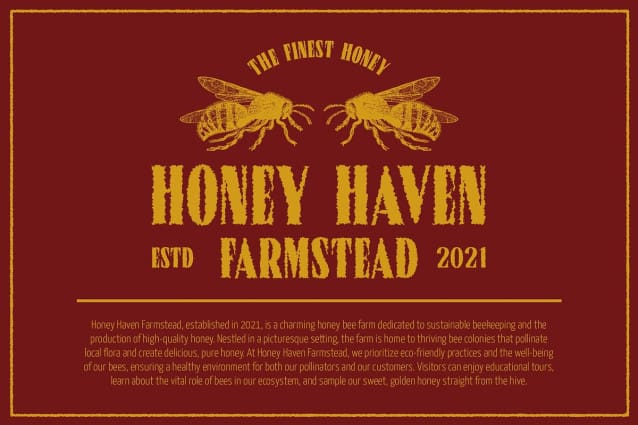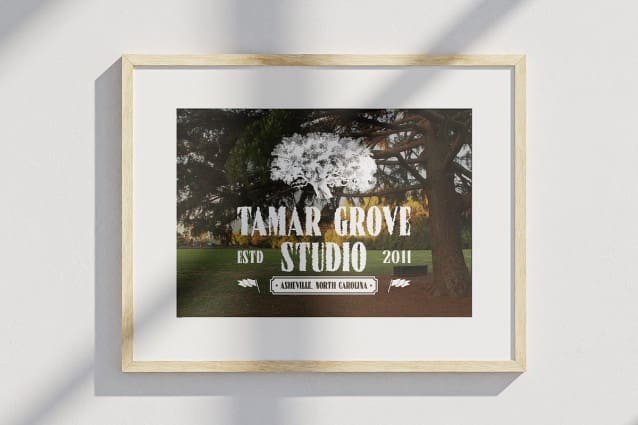
Norten Rough Font
Norten Rough Font is a striking serif font that exudes confidence and assertiveness through its bold design. Featuring strong lines and clear contours, this font is crafted to command attention, making it an excellent choice for projects that require a definitive and impactful visual statement. The bold characteristics ensure legibility while contributing to its modern aesthetic.
Rough Texture for Enhanced Visual Appeal What sets Norten Rough apart is its unique rough texture, which adds a layer of dynamism and engagement to its overall appearance. This texture imbues the font with character, creating a sense of movement and energy that makes it visually intriguing. The combination of thick shapes and this rough effect enhances depth, providing a tactile quality that draws the viewer in and invites further exploration.
Perfect for Bold and Assertive Projects Norten Rough is ideal for a wide range of applications that seek to express boldness and creativity. Whether for posters that need to capture attention, branding that aims to make a memorable impact, or industry-oriented graphic designs that require a professional yet dynamic look, this font stands out in any context. Its assertive style is perfect for campaigns and projects that want to convey strength and confidence.